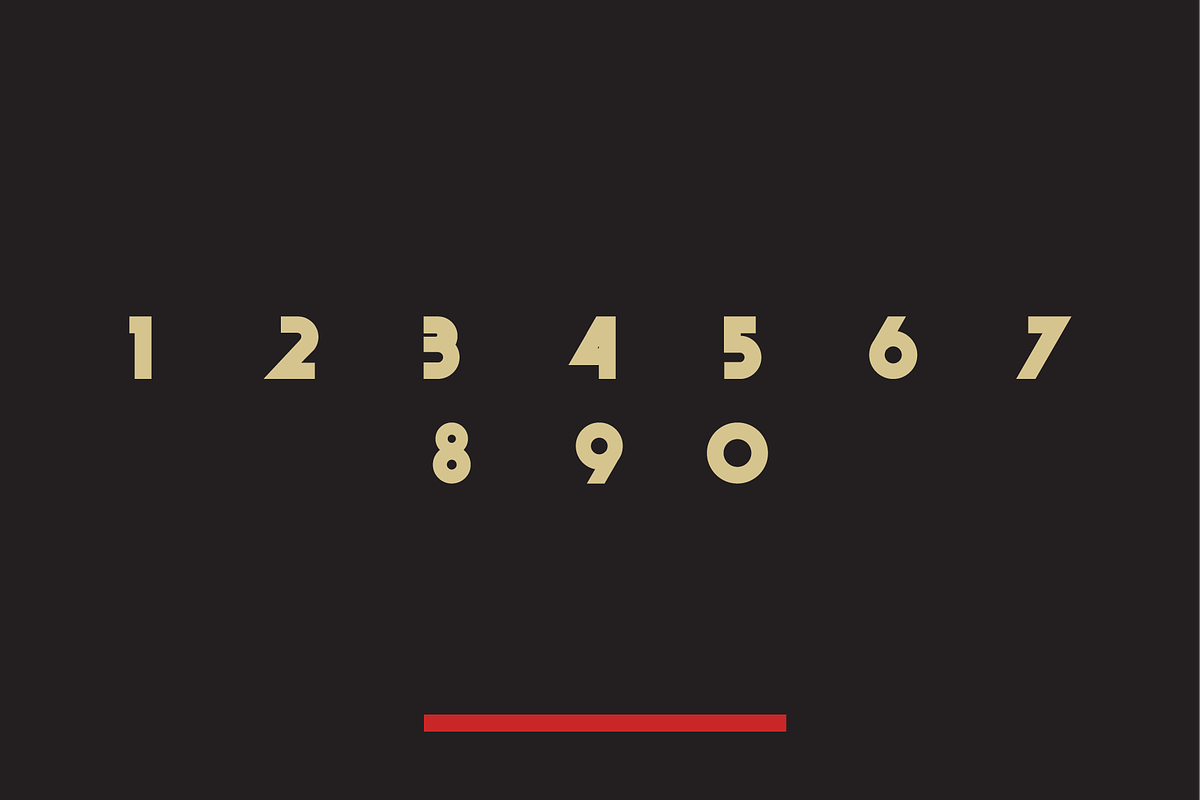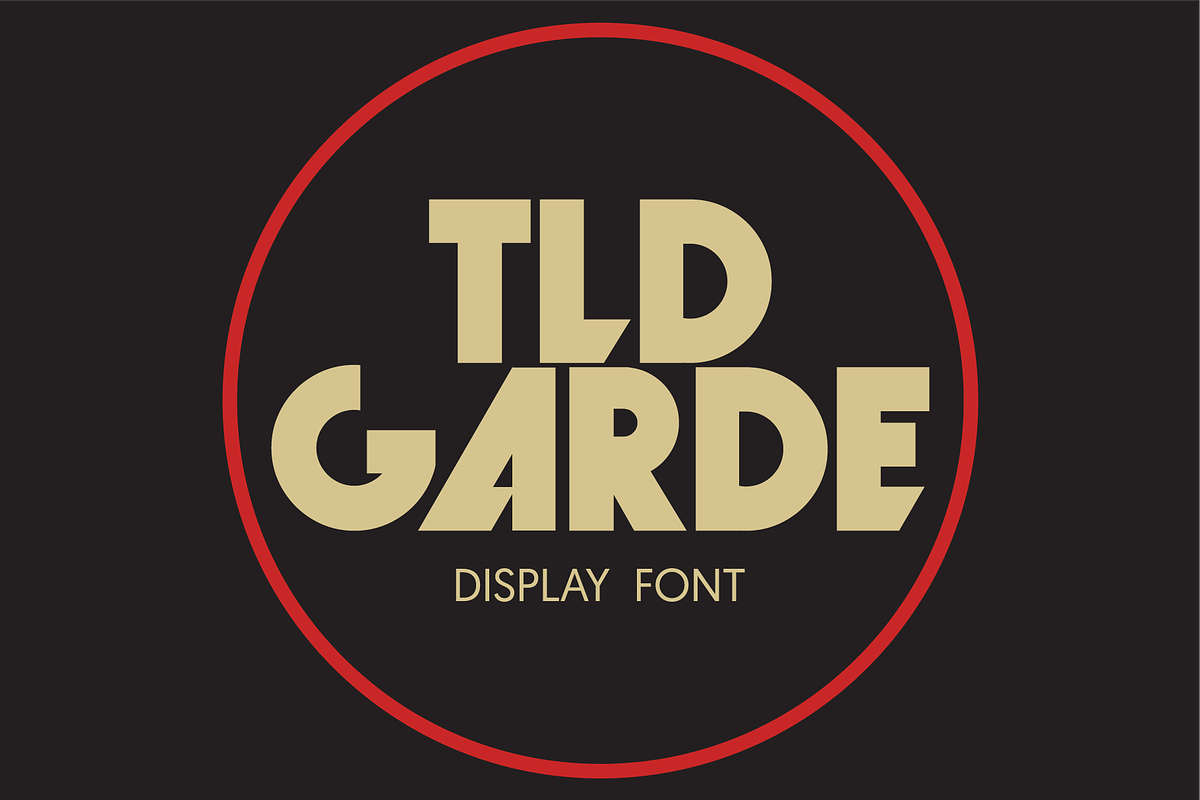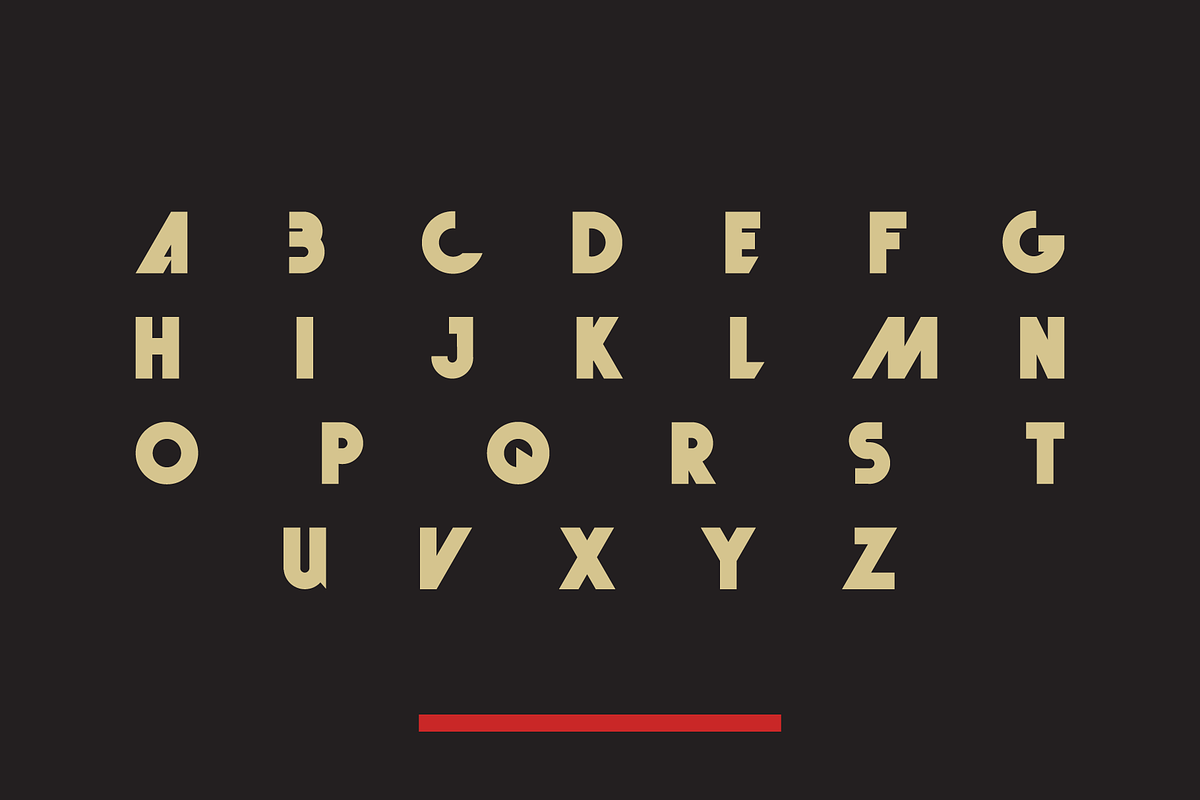
TLDGarde Font
Introducing TLDGarde Font
Only Upper case font and numbers
Why TLDGarde Font is worth a look
TLDGarde Font by Toledo Vector Shop fits naturally into Branding, posters, packaging, typography.